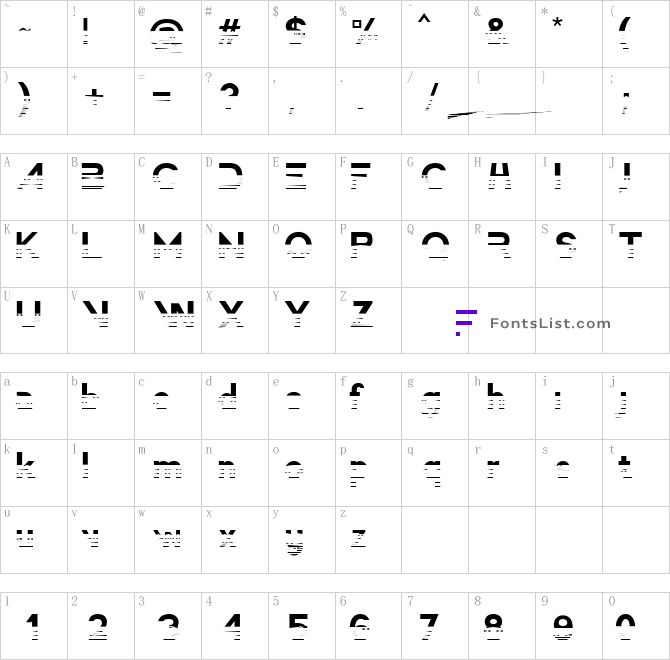
- Font Name:America Faster Gradient
America-Faster-Gradient.ttf is a very beautiful artistic font, America-Faster-Gradient.ttf is widely used in the design and printing of various books and pictures,America-Faster-Gradient.ttf has a strong visual impact,America-Faster-Gradient.ttf is a commonly used font in newspapers, magazines and books, and is used in posters, e-commerce Poster design, store design, logo design, font design and other fields.America-Faster-Gradient.